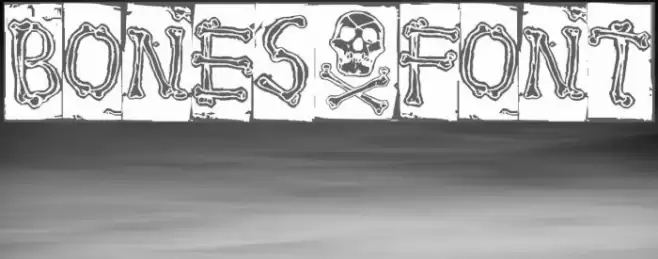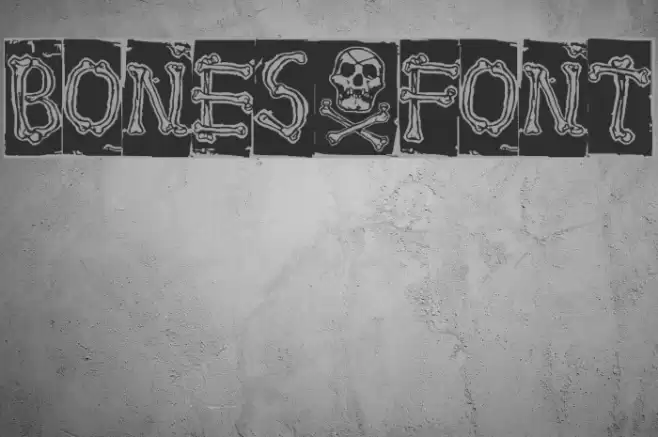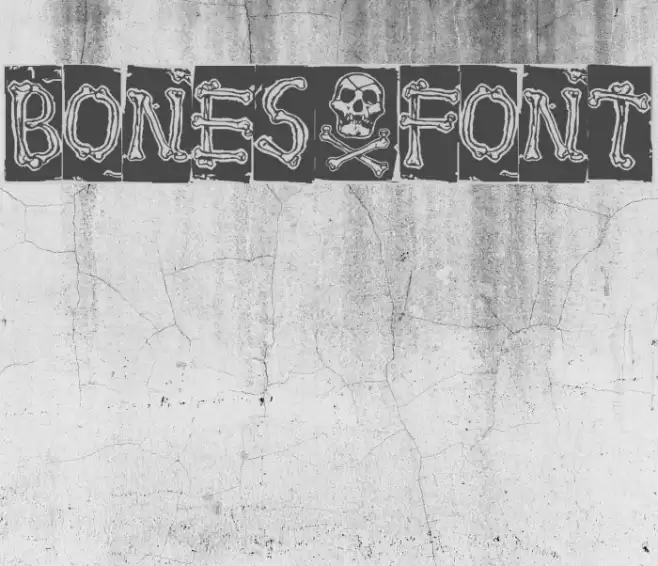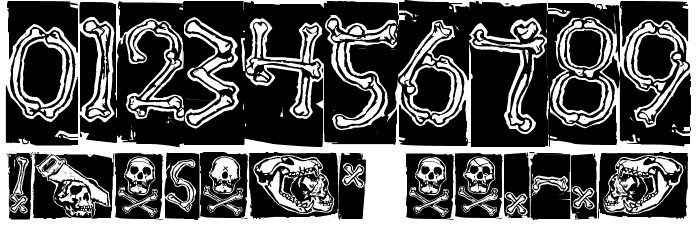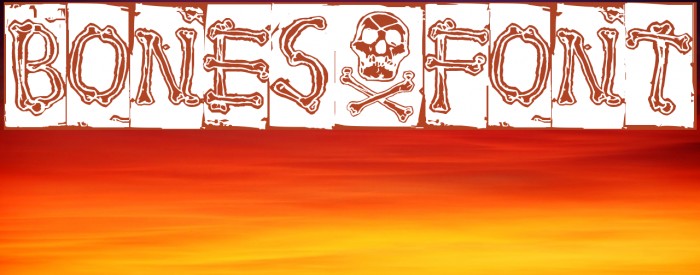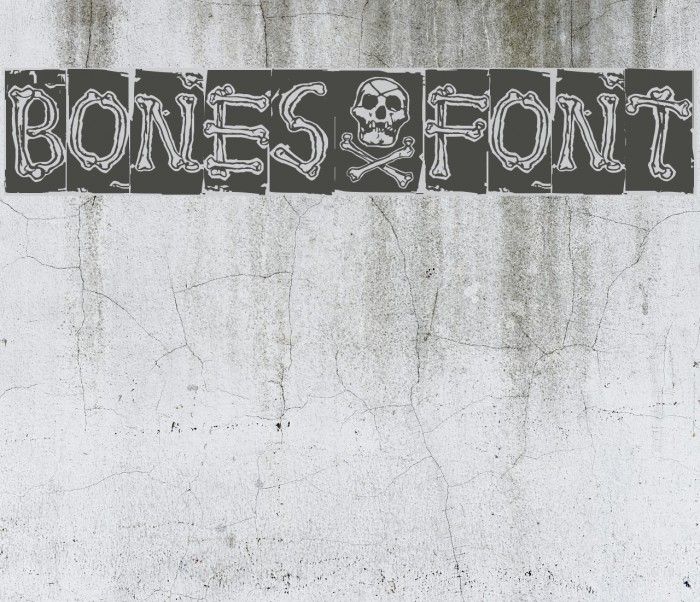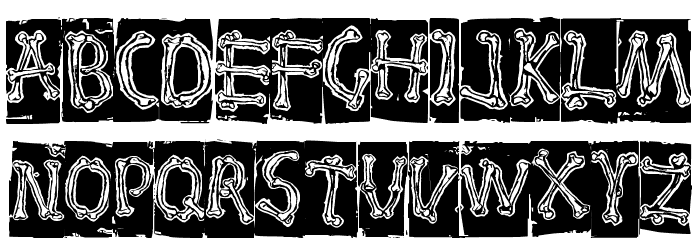
Bones Font
Bones Description
This font features a unique and playful design where each character is crafted to resemble bones. The letters and numbers are composed of bone-like structures, giving it a distinct skeletal appearance. The style is bold and eye-catching, with a decorative flair that makes it suitable for themed projects. The characters are well-defined, with a consistent bone motif throughout, creating a cohesive and thematic look. This font is perfect for Halloween designs, spooky invitations, or any project that requires a touch of the macabre. The special characters include skulls and crossbones, enhancing the overall eerie aesthetic.
A decorative font with characters designed to look like bones, perfect for spooky themes.
- Proposed Projects: Ideal for Halloween invitations, horror-themed posters, and creative design projects requiring a spooky touch.